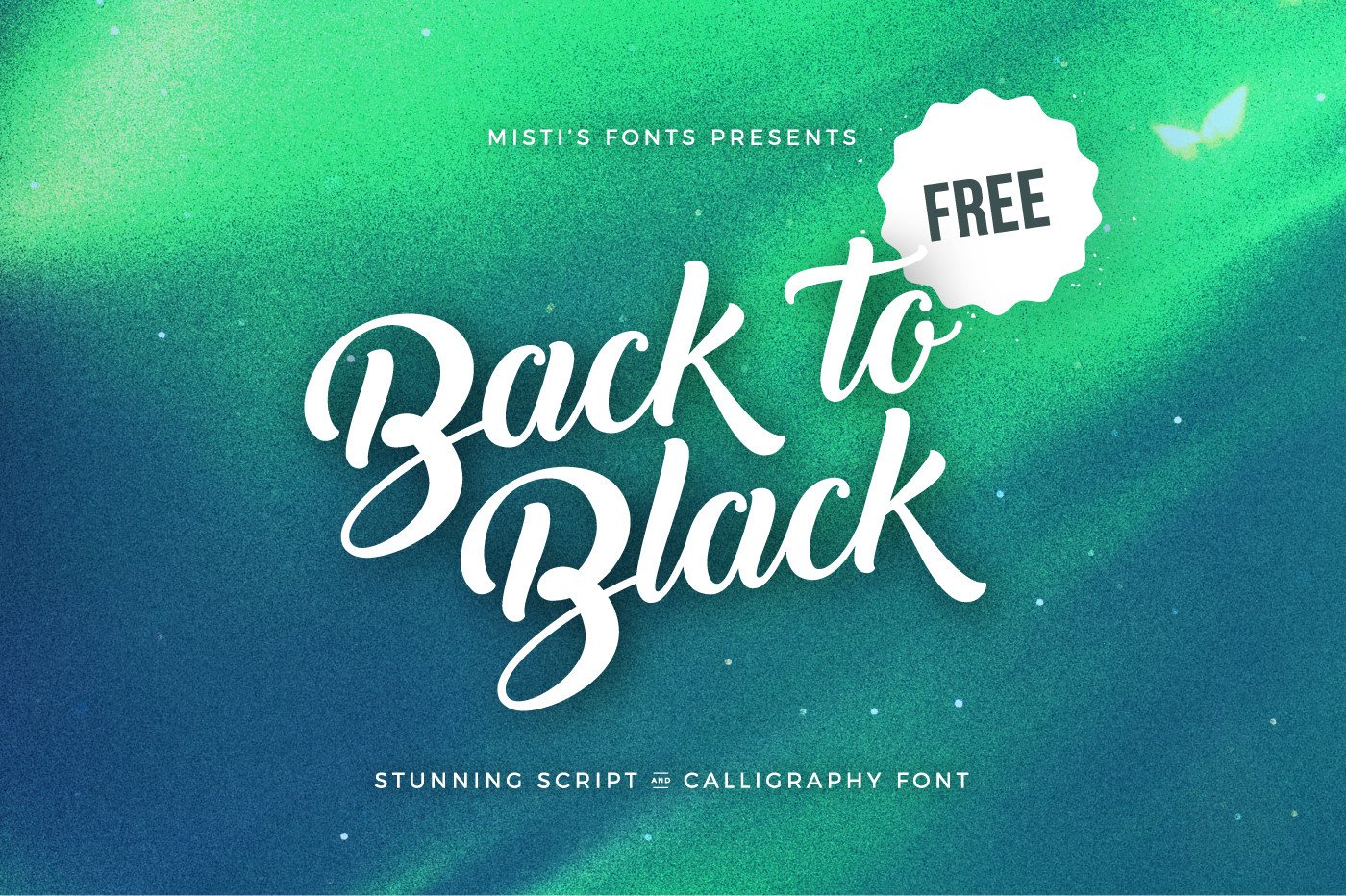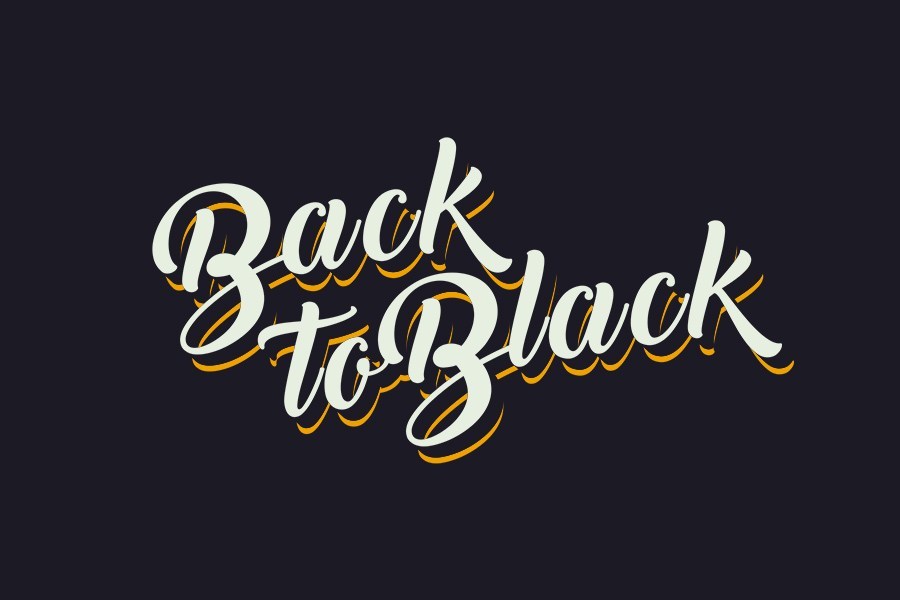
Back to Black Font
He has taken the concept from which changed into as fast as launched. In this manner. It has supported about a hundred and ten types of worldwide languages. Back to Black Font Free Now that you can capable of moreover be referred to as it the prevailing-day model of the love mile font.
Due to the fact now it has contained the whole ancient factors with strength. The entire letters together with this particular font function top-notch based completely in reality format. This typeface is also listed in the google fonts. That is also known as the magnolia sky font.
Download It has availably top-notch in an unmarried huge kind but this kind has many types of d din font. Furthermore, proudly owning the layout. A well-known typeface for people who love strolling with lettering is rock’s roll typeface font. Its bubbly appearance may also need to make this a tremendous fitness centre font.